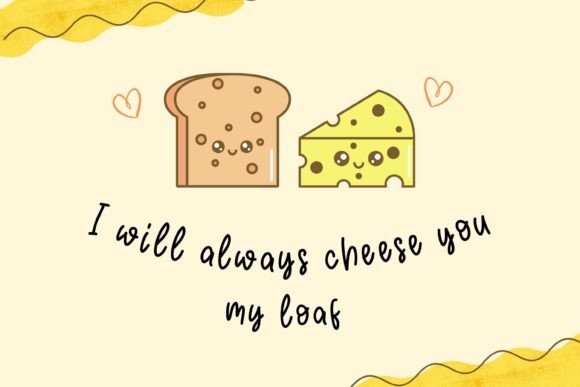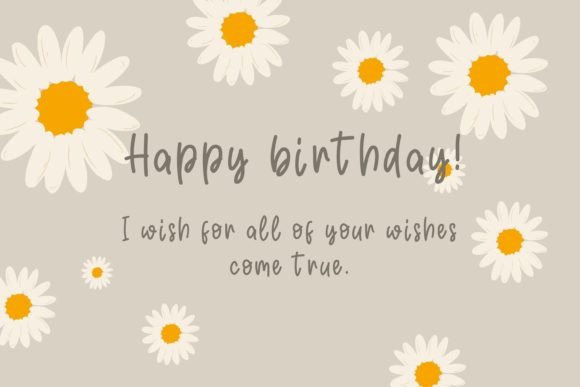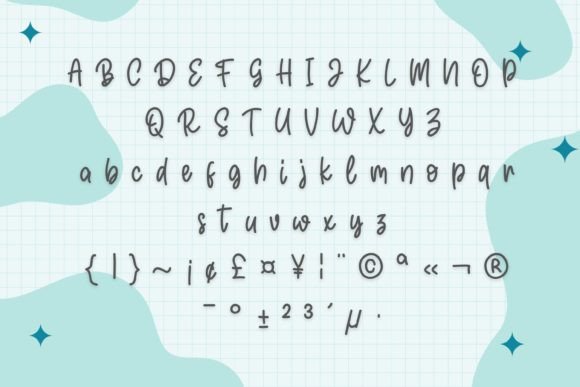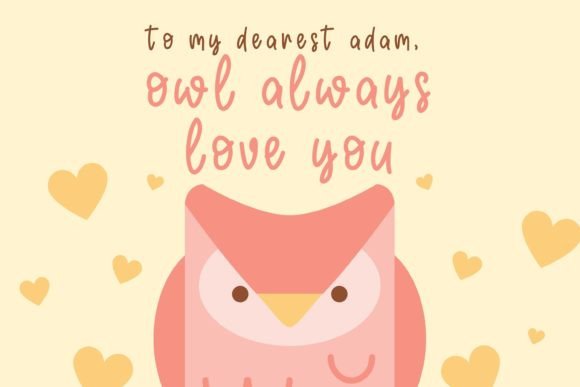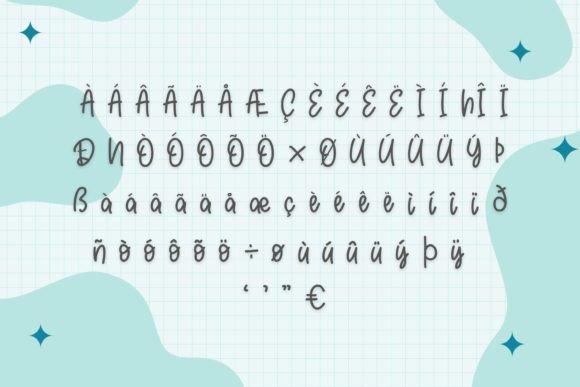
Ayesha Font: Elevate Your Designs with Elegant Handwritten Style
In the world of typography, few fonts capture the essence of elegance and creativity as beautifully as the Ayesha font. This stunning handwritten typeface has been gaining popularity among designers and crafters for its smooth, cursive script and meticulously crafted characters. With its flowing lines, high level of detail, and digital refinement, Ayesha font is the perfect choice for a wide range of design projects, from luxurious invitations to captivating logos.
The Unique Charm of Ayesha Handwritten Font
Ayesha handwritten font stands out from the crowd with its distinctive blend of traditional handwriting and digital precision. Each character is carefully drawn to create a seamless, connected script that exudes sophistication and charm. The font’s smooth lines, varying stroke widths, and delicate flourishes give it a natural, organic feel that’s perfect for designs that require a personal touch.
Key Features of Ayesha Font
- Elegant Cursive Script: Ayesha font features a beautiful, flowing cursive script that’s perfect for creating sophisticated designs.
- Hand-Drawn Characters: Each character is meticulously crafted to ensure a unique, handmade feel.
- Digital Refinement: The font has been digitally refined to ensure crisp, clean lines and precise rendering.
- High Level of Detail: Ayesha font boasts an impressive level of detail, making it perfect for large and small design projects alike.
Design Applications for Ayesha Font
Ayesha font is an incredibly versatile typeface that can be used in a wide range of design projects, including:
- Invitations: Create stunning wedding invitations, birthday cards, and other celebratory designs with Ayesha font’s elegant script.
- Logos: Use Ayesha font to create captivating logos that showcase your brand’s personality and style.
- Branding: Add a touch of sophistication to your brand’s identity with Ayesha font’s unique, handwritten style.
- Packaging: Elevate your product packaging with Ayesha font’s beautiful, flowing script.
Why Choose Ayesha Font?
With so many fonts available, why choose Ayesha font for your design projects? Here are just a few compelling reasons:
- Unique Style: Ayesha font offers a distinctive, elegant style that’s sure to set your designs apart.
- High Versatility: This font can be used in a wide range of design projects, from invitations to logos and beyond.
- Easy to Read: Ayesha font’s clear, flowing script makes it easy to read, even at small sizes.
- Timeless Appeal: The font’s classic, elegant style ensures that your designs will remain timeless and stylish for years to come.
Tips for Using Ayesha Font
To get the most out of Ayesha font, here are a few expert tips:
- Pair with Contrasting Fonts: Combine Ayesha font with contrasting fonts to create visually appealing typography.
- Pay Attention to Spacing: Make sure to adjust the spacing between characters to ensure a smooth, natural flow.
Ayesha font is a stunning, elegant typeface that’s perfect for designers and crafters looking to add a touch of sophistication to their designs. With its smooth, cursive script, hand-drawn characters, and digital refinement, this font is sure to elevate your design projects and leave a lasting impression. Whether you’re creating invitations, logos, or branding materials, Ayesha font is an excellent choice for anyone seeking a unique, timeless style.